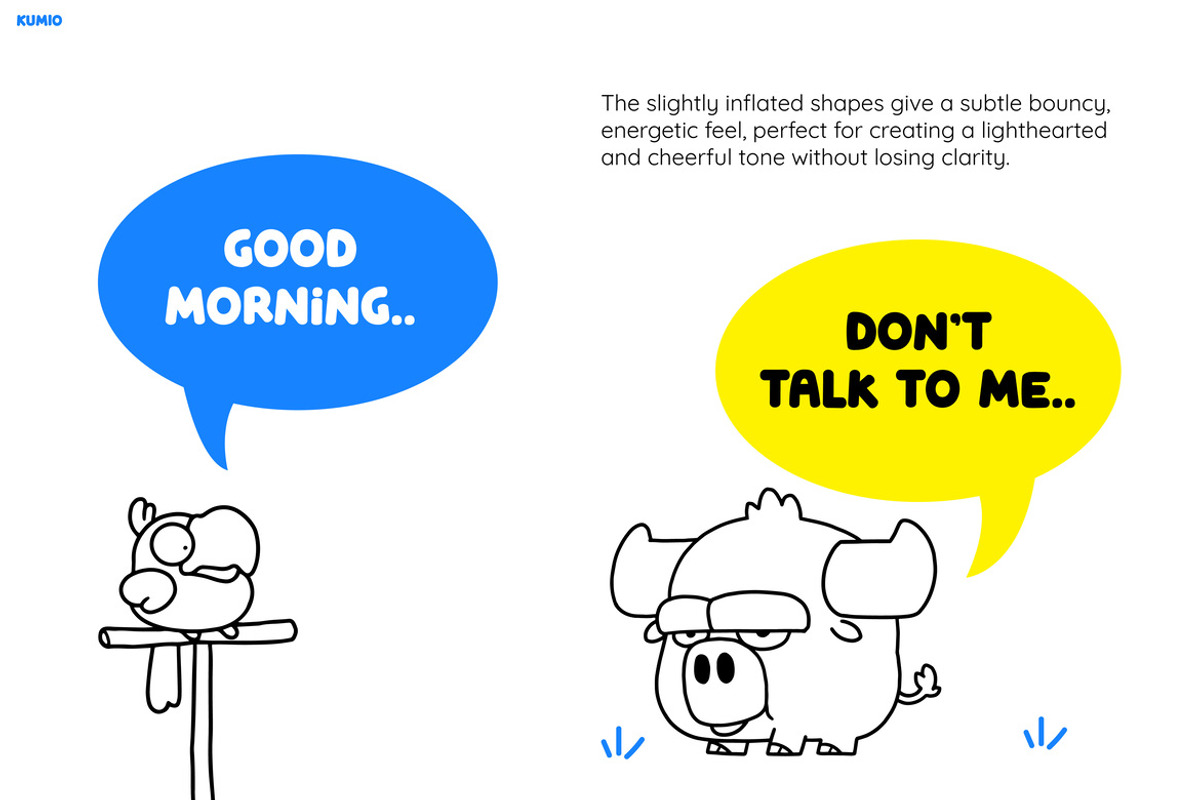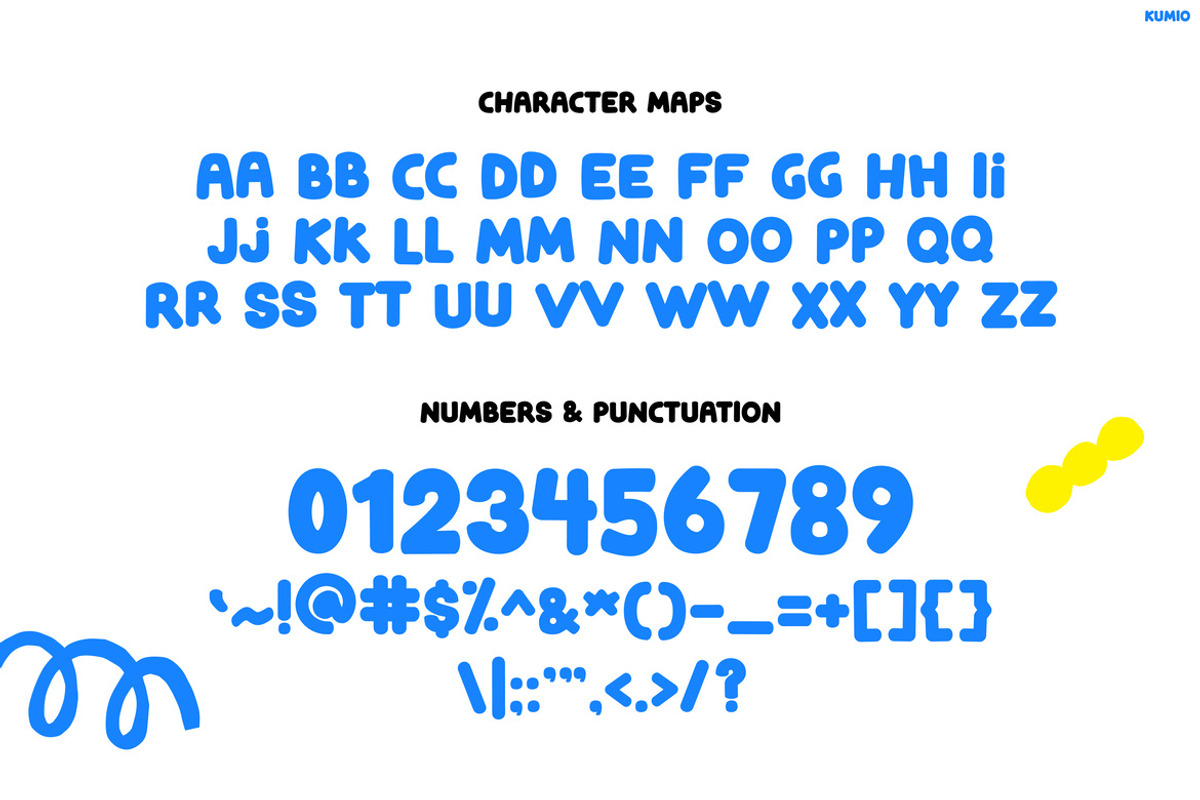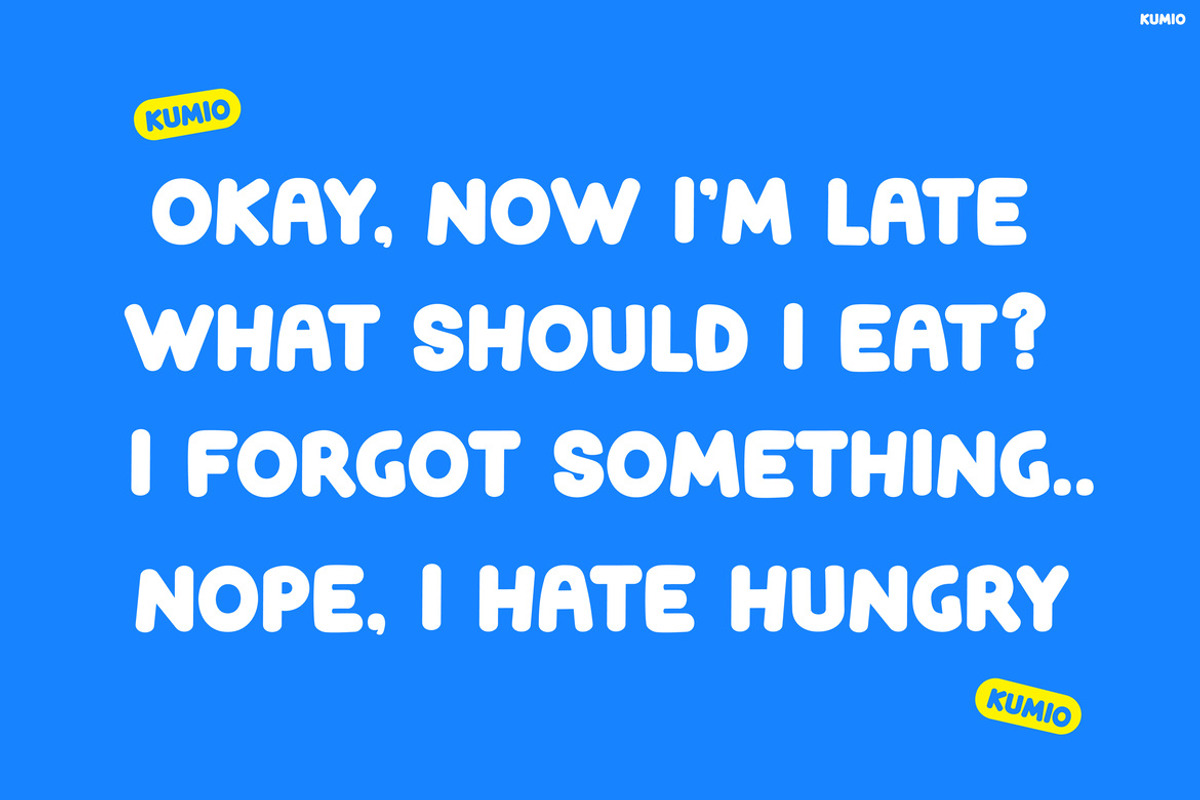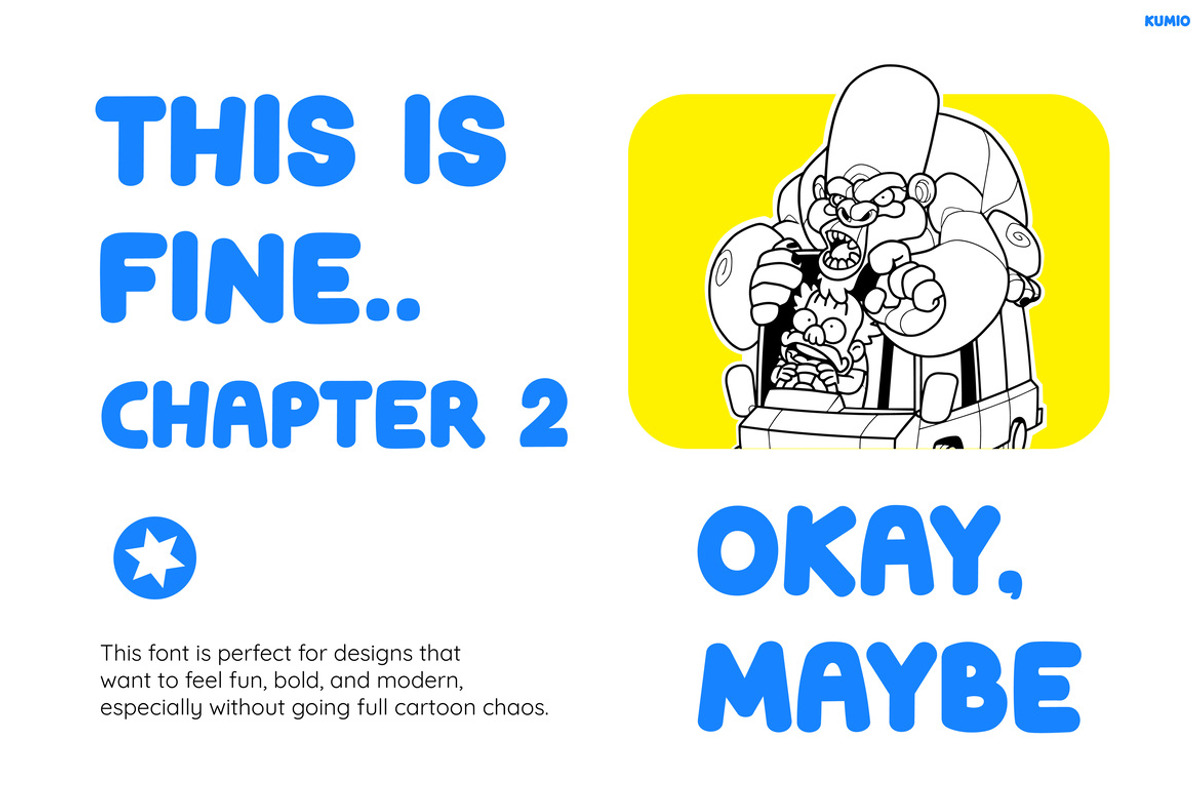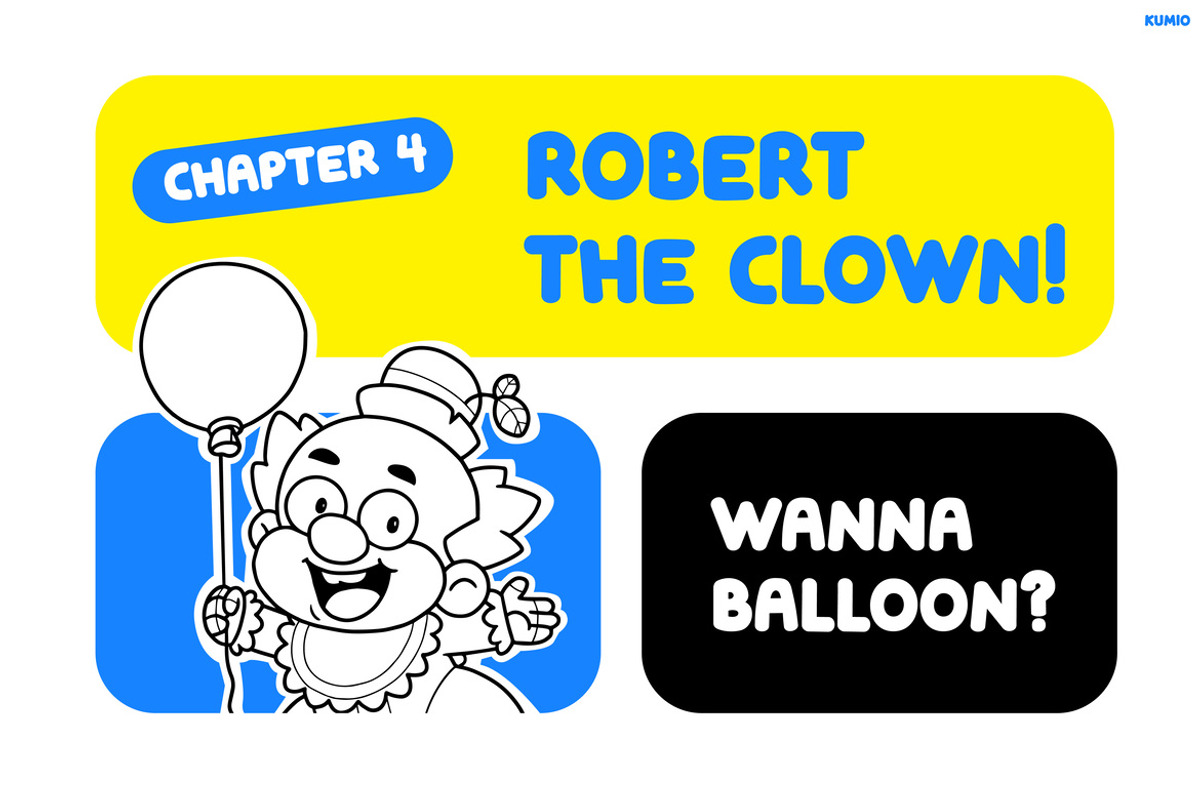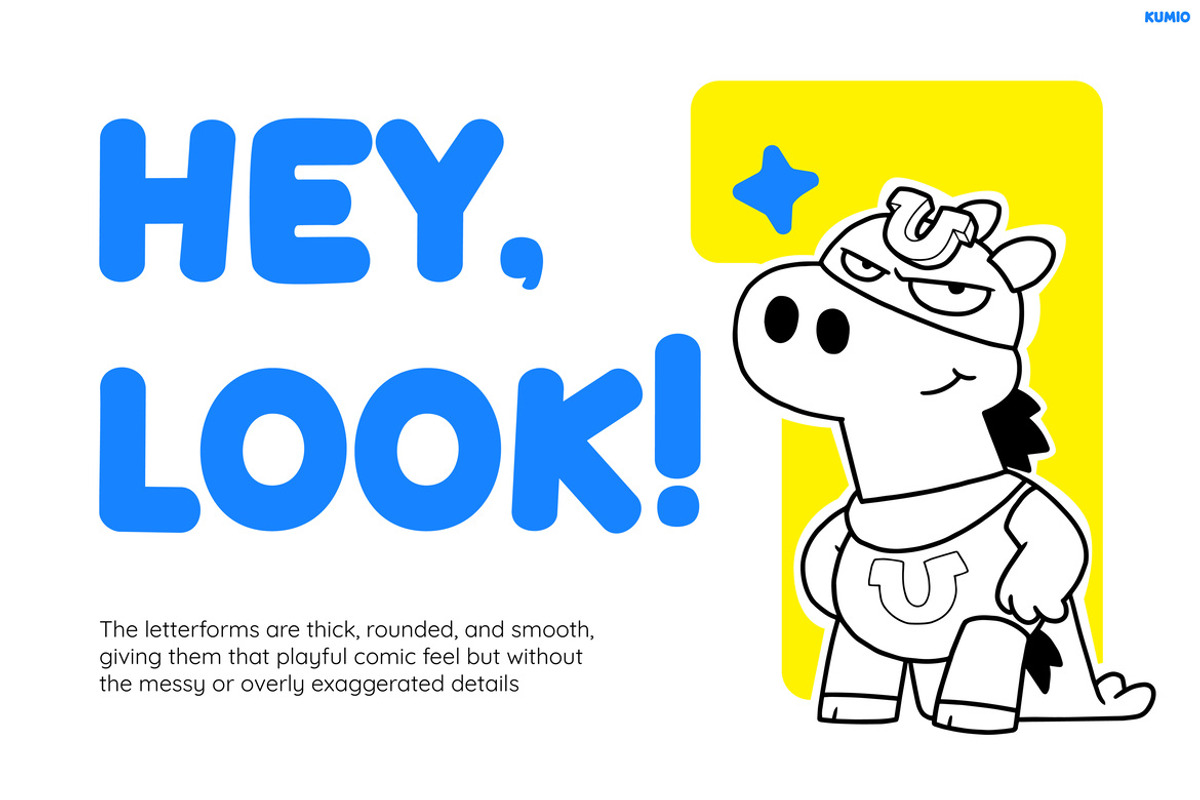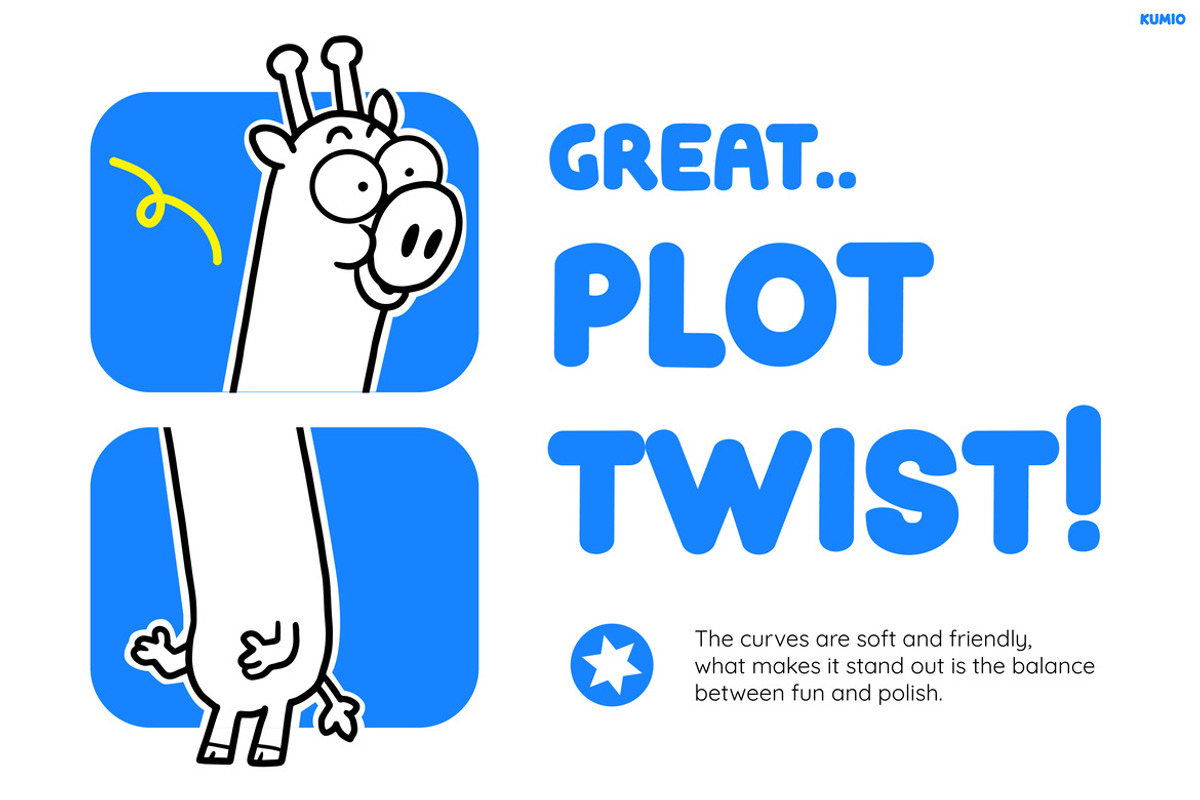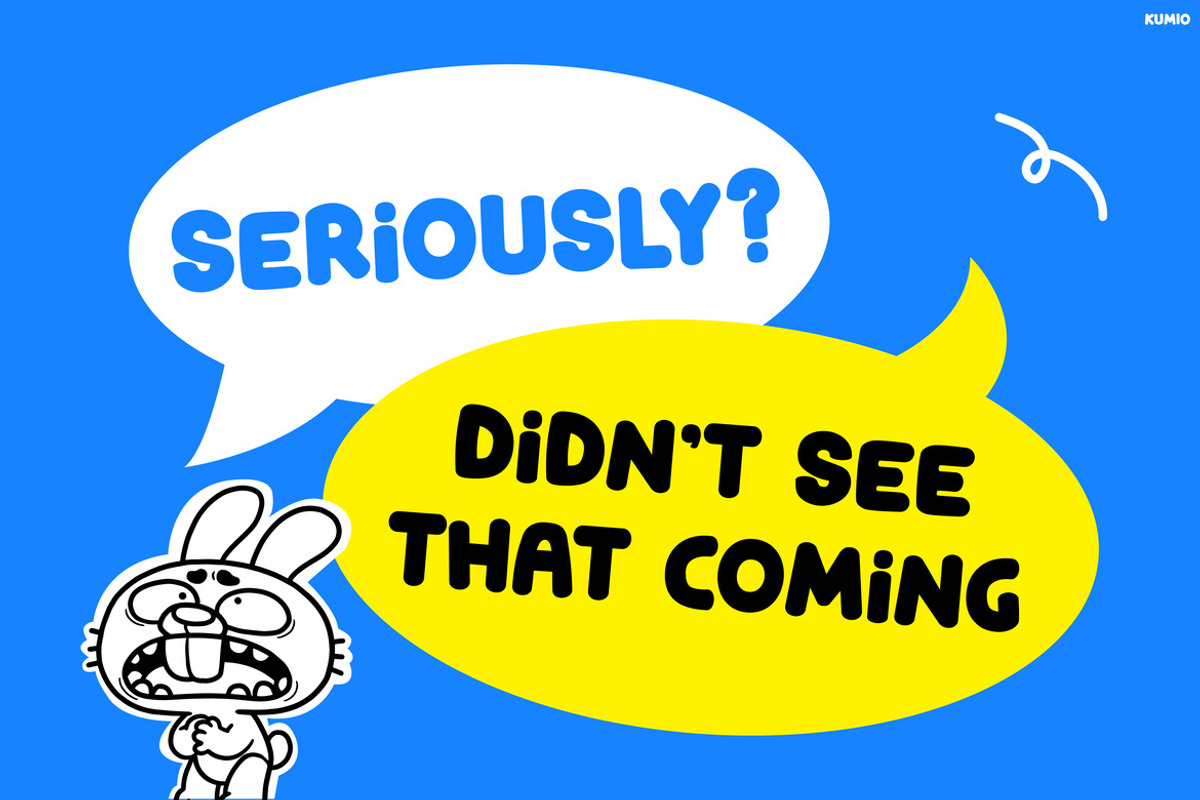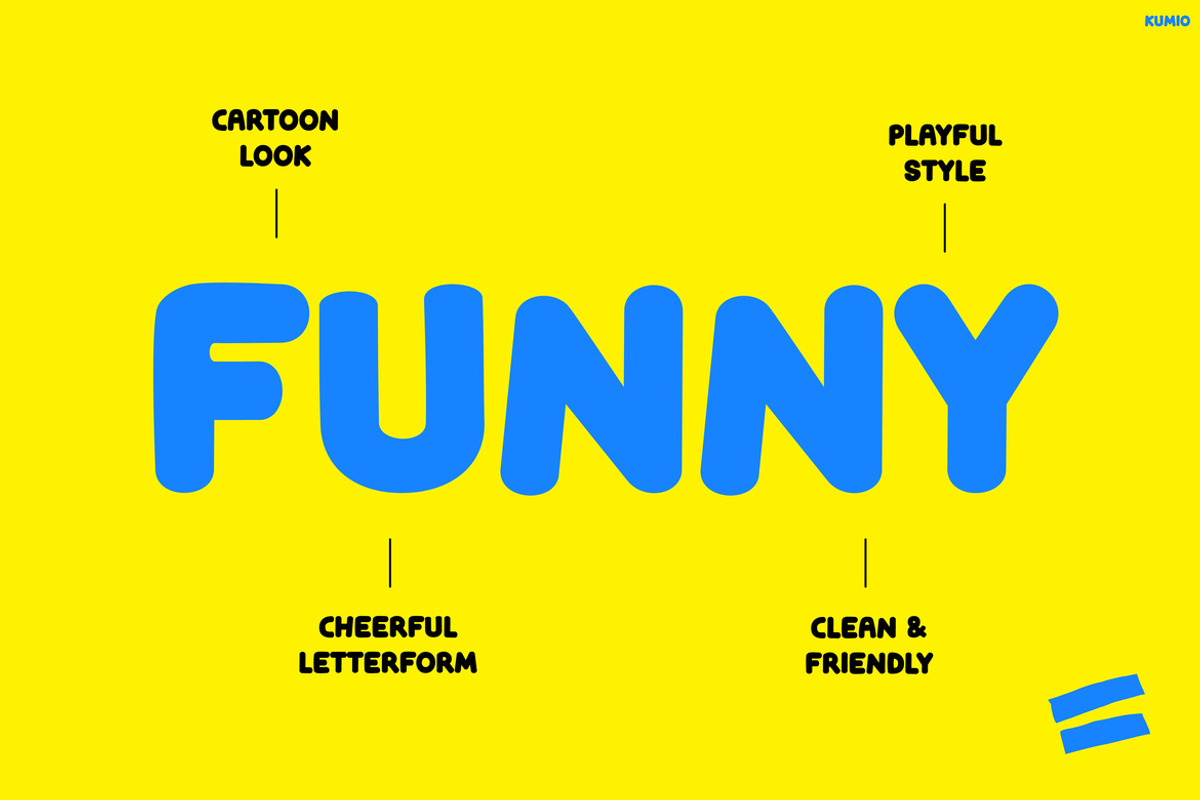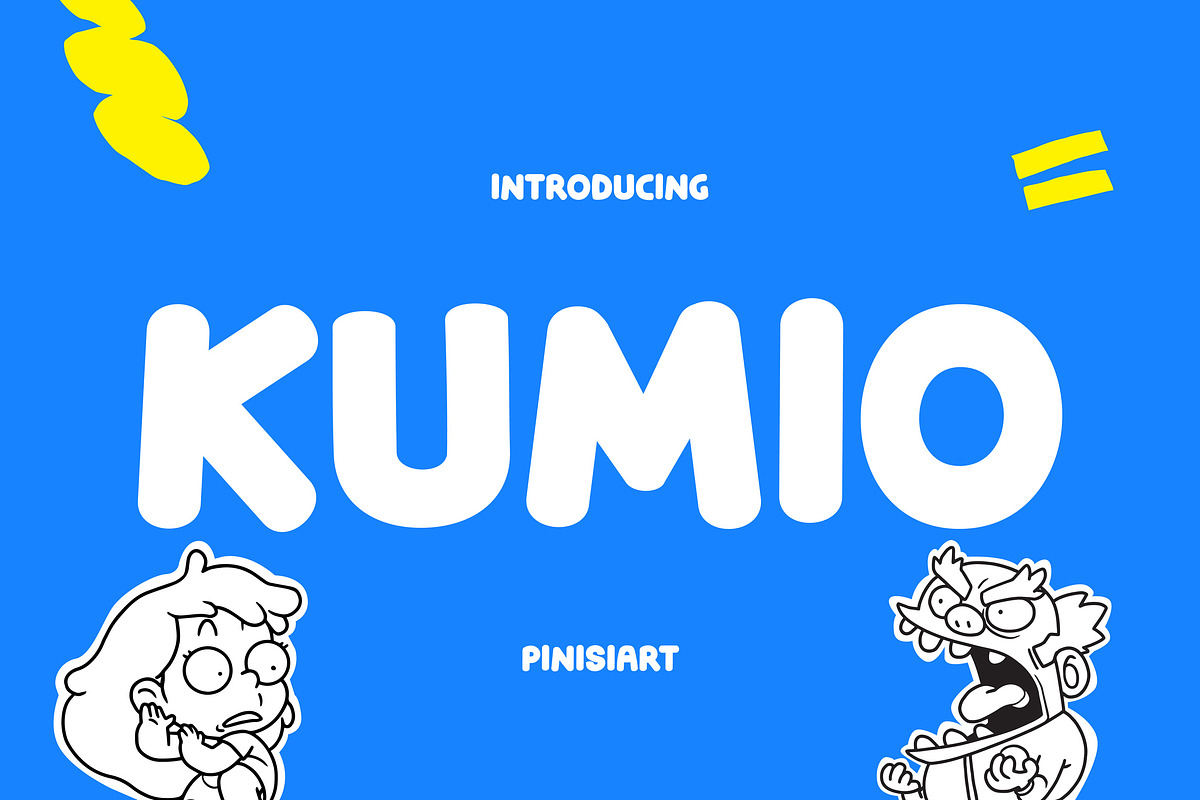
Kumio
KUMIO – Playful Comic Kids Display Font
Kids Font Kumio brings a bold, bubbly personality that instantly grabs attention, while also delivering a fun and friendly visual style. Moreover, its chunky shapes and smooth curves create a playful rhythm that feels alive in every letter. In addition, the comic-style aesthetic makes it highly engaging, so your designs look more expressive and full of character. Because of this, the font not only enhances readability but also adds emotional impact, making every word feel cheerful and dynamic.
Kids Font Kumio is designed to spark joy and creativity in every project. Furthermore, it works beautifully with colorful layouts, playful illustrations, and speech-bubble concepts. As a result, your designs become more lively and interactive. Not only that, but the font also maintains clarity, so it remains easy to read even in bold compositions. Therefore, it’s a perfect balance between fun and function.